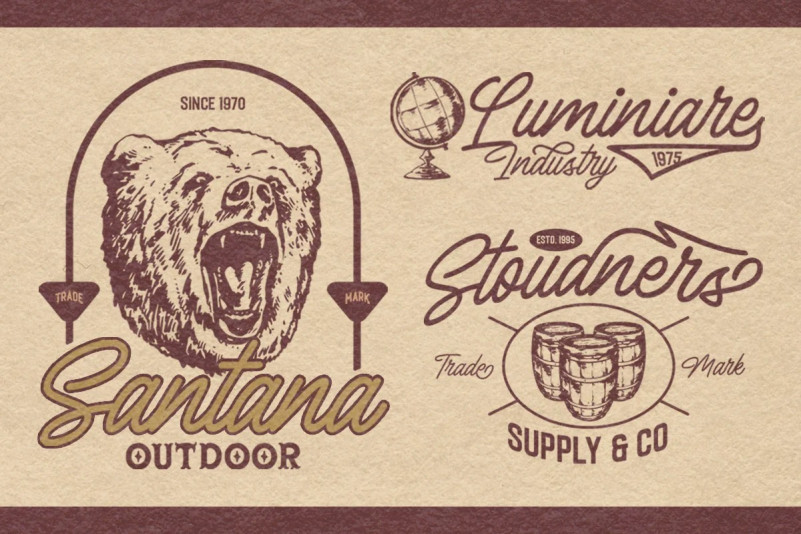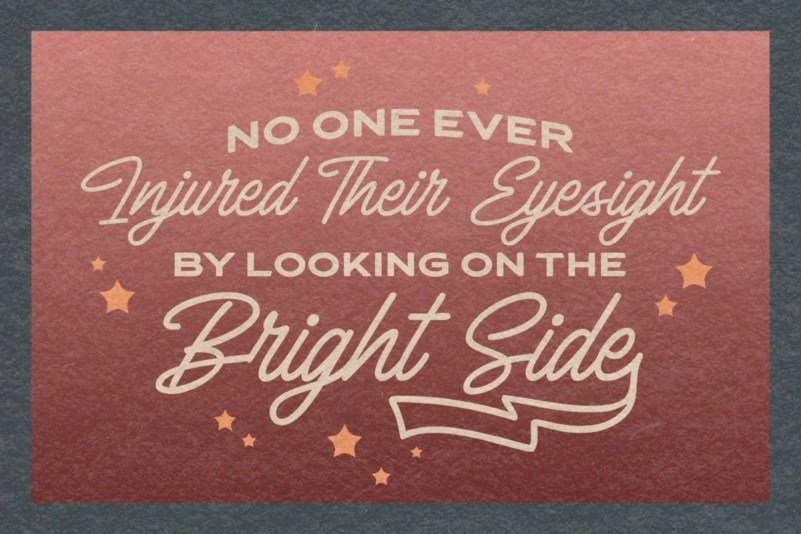
The Bardian Font
The Bardian Handwritten Font
This is a bold script type font with a touch of vintage look and feel. Made with a sket or hand writting process. You will also get 10 detailed hand drawn objects. This type of font perfectly made to be applied especially in logo, headline, signage and the other various formal forms such as invitations, labels, logos, magazines, books, greeting / wedding cards, packaging, fashion, make up, stationery, novels, labels or any type of advertising purpose.